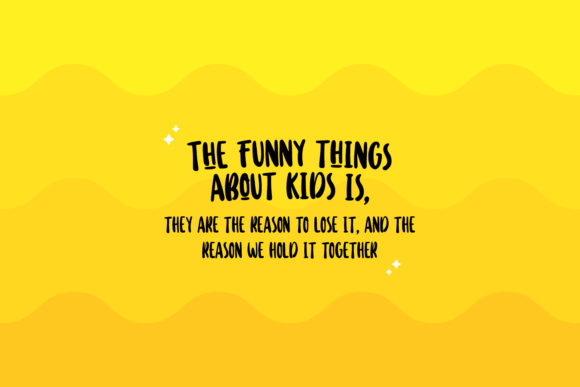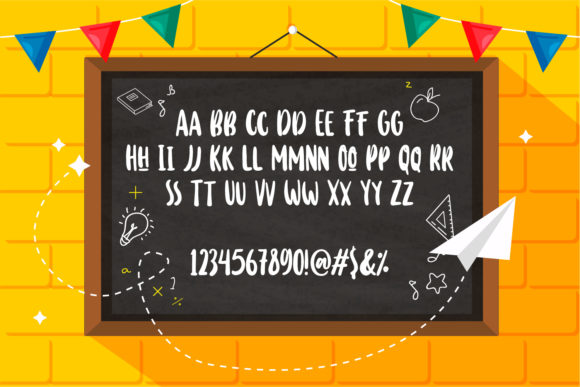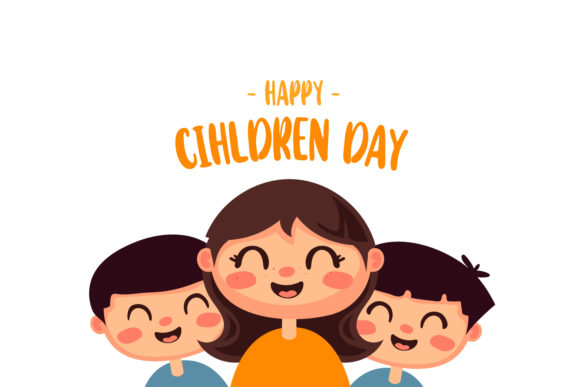
Discovering the Perfect Font for Kid-Friendly Designs
As a designer, there’s nothing quite like the thrill of creating something that brings a smile to a child’s face. I still remember the moment I stumbled upon the Baby Sans Font, and my heart skipped a beat. The quirky characters and playful style had me hooked from the very first glance.
| 👤 Author | Dikas Studio |
Baby Sans Font is a hand-drawn brush sans font that’s specifically designed to add a touch of whimsy to any kids’ theme design. With its unique characters and funny style, it’s the perfect addition to any project that requires a lighthearted and approachable tone. Whether you’re designing a children’s book, a nursery, or a website for kids, Baby Sans Font is sure to bring a smile to your face and a touch of personality to your design.
For designers, Baby Sans Font is a valuable tool that can help bring a project to life. Its versatility and charm make it a go-to choice for any design that requires a playful and engaging tone. So why not give it a try and see how it can add some magic to your next design project?
Baby Sans Font Key Features
- Unique Characteristics: Baby Sans Font features a unique, rounded sans-serif design with a friendly and approachable feel, making it perfect for children’s books, educational materials, and other applications where a gentle tone is desired.
- Kerning and Ligatures: The font includes advanced kerning and ligature features to ensure smooth text rendering and a professional look.
Baby Sans Font Review
Overall, I was excited to dive into the Baby Sans Font, and here’s my honest take.
The font’s unique and playful design makes it perfect for projects that need a fun, youthful vibe. It’s great for titles, headings, and any text that needs a bit of personality.
- The font’s rounded edges and smooth curves give it a friendly feel that’s hard to resist.
- The letterforms are well-spaced, making it easy to read even in smaller sizes.
- The font family includes a range of weights and styles, making it versatile for various design needs.
While the font is perfect for certain projects, it may not be the best choice for more formal or professional designs.
- The font’s playful nature may not be suitable for projects that require a more serious or sophisticated tone.
- The letterforms can become a bit too rounded in certain weights, which may make them harder to read in certain contexts.
- The font may not be the best choice for projects that require a lot of bold or italic text.
The Baby Sans Font is a solid choice for designers who want to add a playful touch to their projects. While it may have some limitations, its unique design and versatility make it a great addition to any font library.
Baby Sans Font is ideal for:
– Creating a playful and modern look for children’s books or educational materials.
– Designing branding materials for companies targeting a young audience.
– Adding a touch of whimsy to digital products or websites.